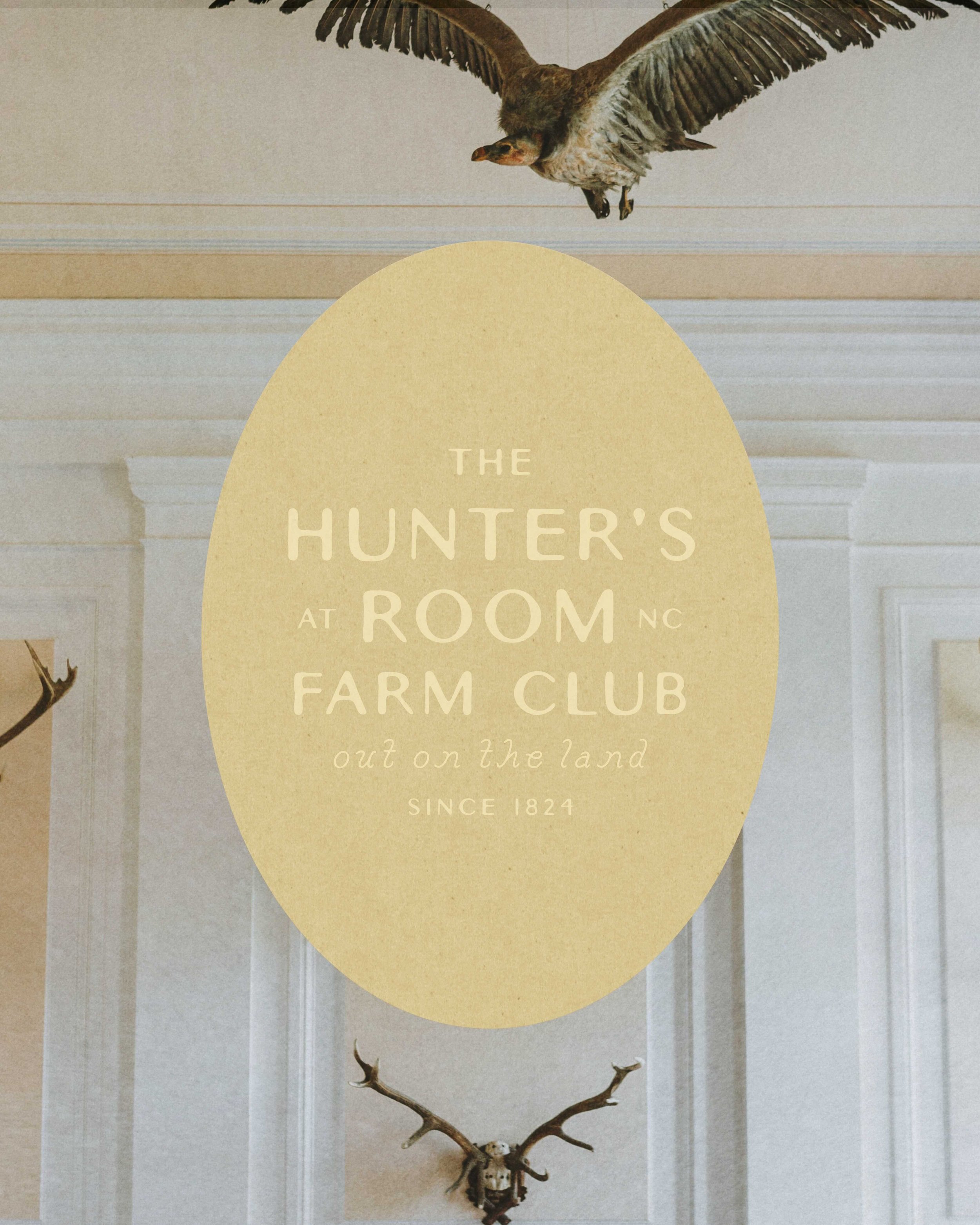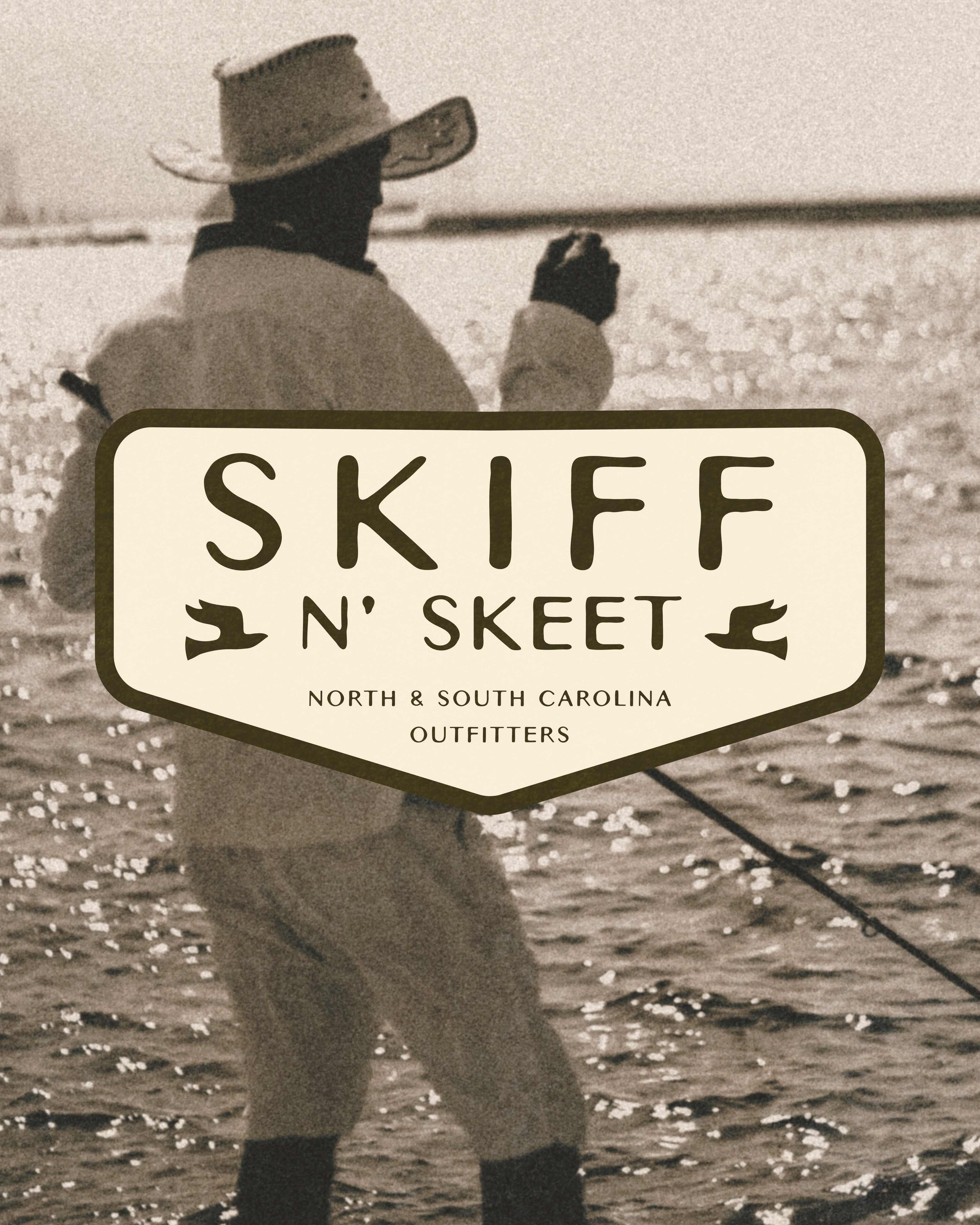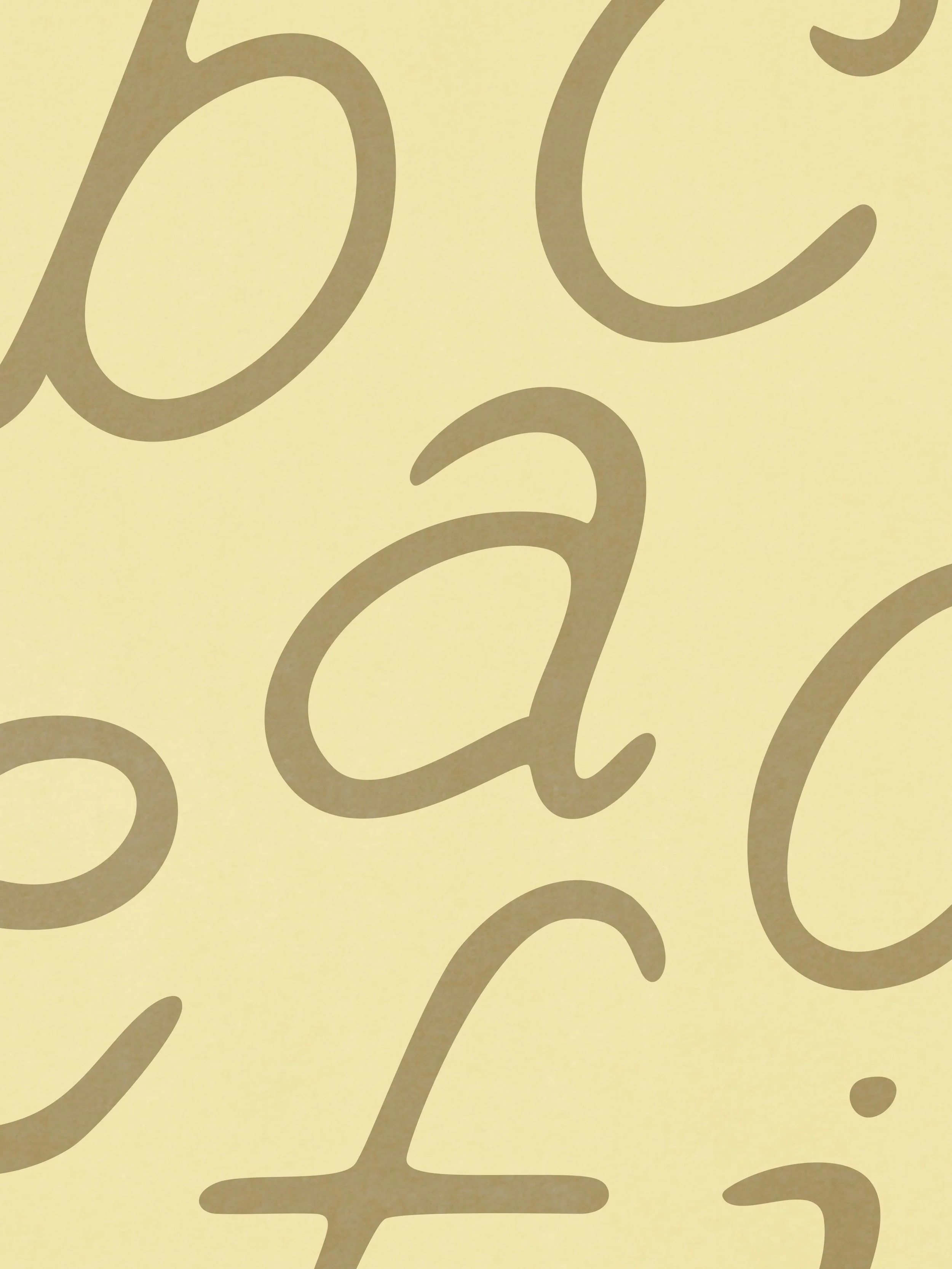
Isla Font
The Isla Font: An Island-inspired, Semi-Script Serif
I played around and accidentally made a font that feels like the girl you met on vacation who still lingers in your mind.
Isla is a dreamy font that bottles up the feeling of the Florida Keys in an original hand-drawn typeface. The font captures the soft sway of a palm leaves and the unhurried pace of island life. It unique letter forms are a blend of semi-serif and a fluid script, bringing an undeniably relaxing feel . Each character is intentionally crafted with a rhythmic, undulating flow, like a kiss of the breeze on your skin as you sway in a hammock above the soft sands of your favorite beach.
Whether you are designing a high-end boutique identity, ethereal social content, or editorial layouts, Isla brings an effortless sophistication and sweetness. The font is crafted to linger on your mind, like a memory of spaces that bring you peace and soothing memories.
The Isla Font is Ideal For:
Boutique Branding & Logos: Create elevated identities for spas, coastal retreats, or luxury swimwear brands.
Social Media & Editorial: Add a poetic, hand-crafted touch to Instagram quotes, Pinterest graphics, and digital lookbooks.
Packaging: Elegant, minimalist accents for skincare, organic apothecary goods, or calming menus for tropical cafes.
Wedding & Event Stationery: Perfectly suited for timeless invitations that feel personal, refined, romantic, and natural flowy handwriting feel.
Signage & Merch: Bring a soft, inviting feel to coffee shop marketing goods, screen-printed linens, tote bags, and anything you can dream up.
Full Character Set: A complete alphabet of characters with a uni-case style.